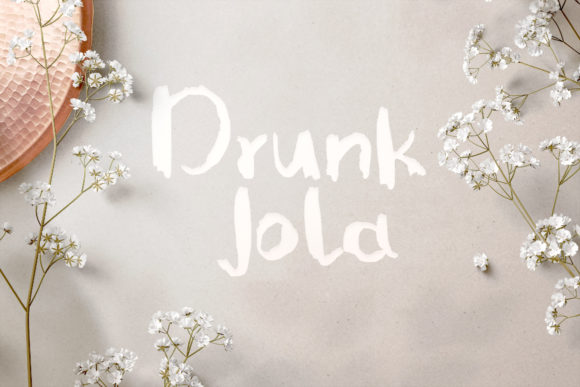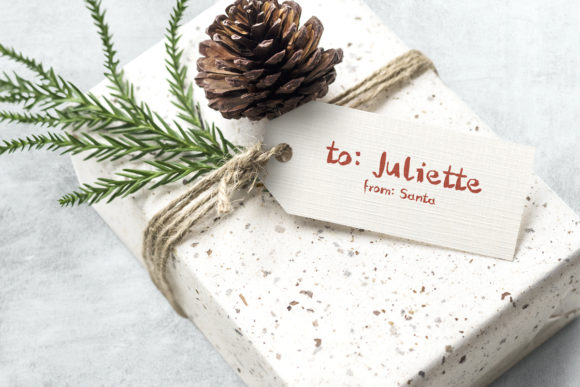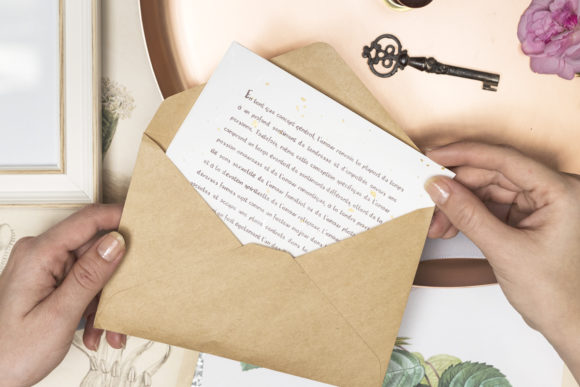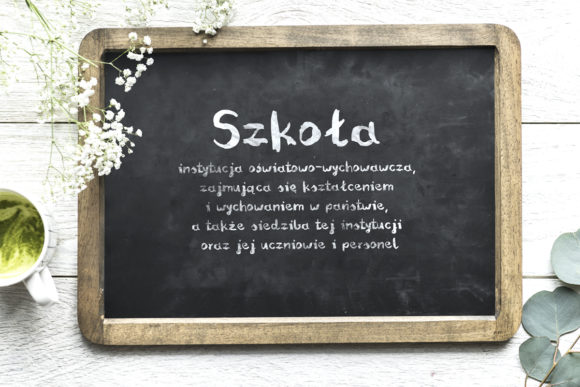
Drunk Jola Font
About Drunk Jola Font
Drunk Jola is a cute and friendly handwritten font, created with a brush pen. Get creative with its unique look, and use it to brighten up any crafting project!